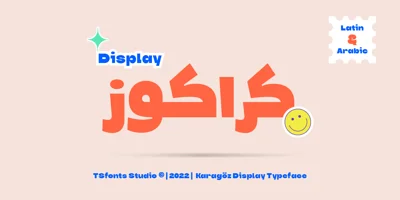
TS Karagoz Font
TS Karagoz Font is ideal for Turkish cultural centers, traditional shadow puppet theaters, Ottoman heritage museums, Turkish folk art exhibitions, cultural festival promotions, traditional storytelling venues, and authentic Turkish entertainment establishments. This theatrical typeface embodies the playful spirit and cultural richness of Karagöz shadow puppet tradition, bringing Turkish folk heritage and comedic entertainment to any design project celebrating traditional Turkish performing arts.
What makes TS Karagoz Font exciting is its delightful combination of theatrical humor and Turkish cultural authenticity that perfectly captures the essence of traditional shadow puppet entertainment and Ottoman folk art heritage. The font features playful letterforms with shadow-inspired details and comedic character variations that evoke both the wit of Karagöz performances and the artistic beauty of traditional Turkish craftsmanship. Its entertaining character appeals to cultural enthusiasts while maintaining excellent readability for both cultural documentation and entertainment venue applications.
The TS Karagoz Font family includes regular and bold weights with complementary shadow variations and Turkish ornamental elements. The character set features theatrical ligatures, cultural symbols, Ottoman alternates, and folk decorative accents that enhance the font's authentic appeal. Extended character support includes Turkish diacritics and traditional cultural symbols for accurate representation in Turkish heritage and entertainment applications.
Whether you're designing Turkish cultural brands, creating folk art materials, or developing traditional entertainment content, TS Karagoz Font provides exceptional cultural authenticity and versatility. This entertaining typeface transforms ordinary text into joyful cultural experiences that celebrate Turkish traditions while establishing respected brand recognition in competitive cultural tourism and traditional entertainment marketplaces.